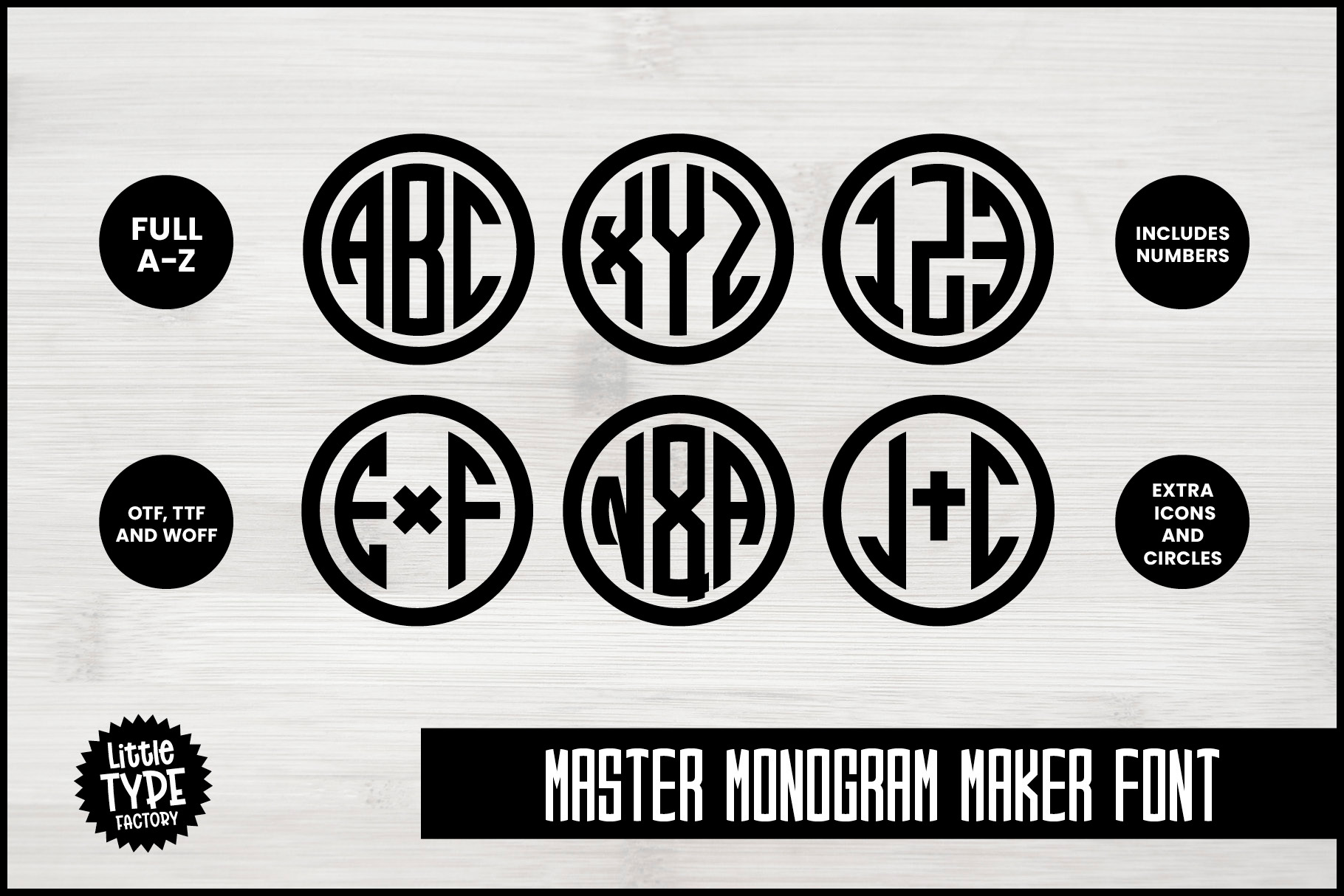
MASTER MONOGRAM FONT Round Mono Font
MASTER MONOGRAM FONT | a Round Monogram Maker font
It's super easy to create your own round block monograms in seconds with this monogram font!
A 3-letter monogram typeface. This circle monogram font generator is great for logos, icons and emblems where three characters are required. AND NOW... with this special round block monogram font, where an ampersand or plus is needed to link two characters!
The Master Monogram font generator has been designed to include numbers and some special characters! The circle monogram font includes an ampersand '&' and a plus '+' so you can create two letter monograms such as 'A & B' or 'X+X' for romantic couples or partners in business? There are also a bullet point '•', dash '-', times '×' and a cross '†' to use for religious monograms or christian monograms!
This circle monogram font can look great on t-shirts, mugs, hats, tumblers... whatever your project requires!
As a rounded monogram font we do not recommend using the Master Monogram Maker font for paragraphs of text although it can be used with the central letters only to create titles and quotes in a distinctive style - as the titles in the previews show where it says 'MASTER MONOGRAM MAKER FONT'.